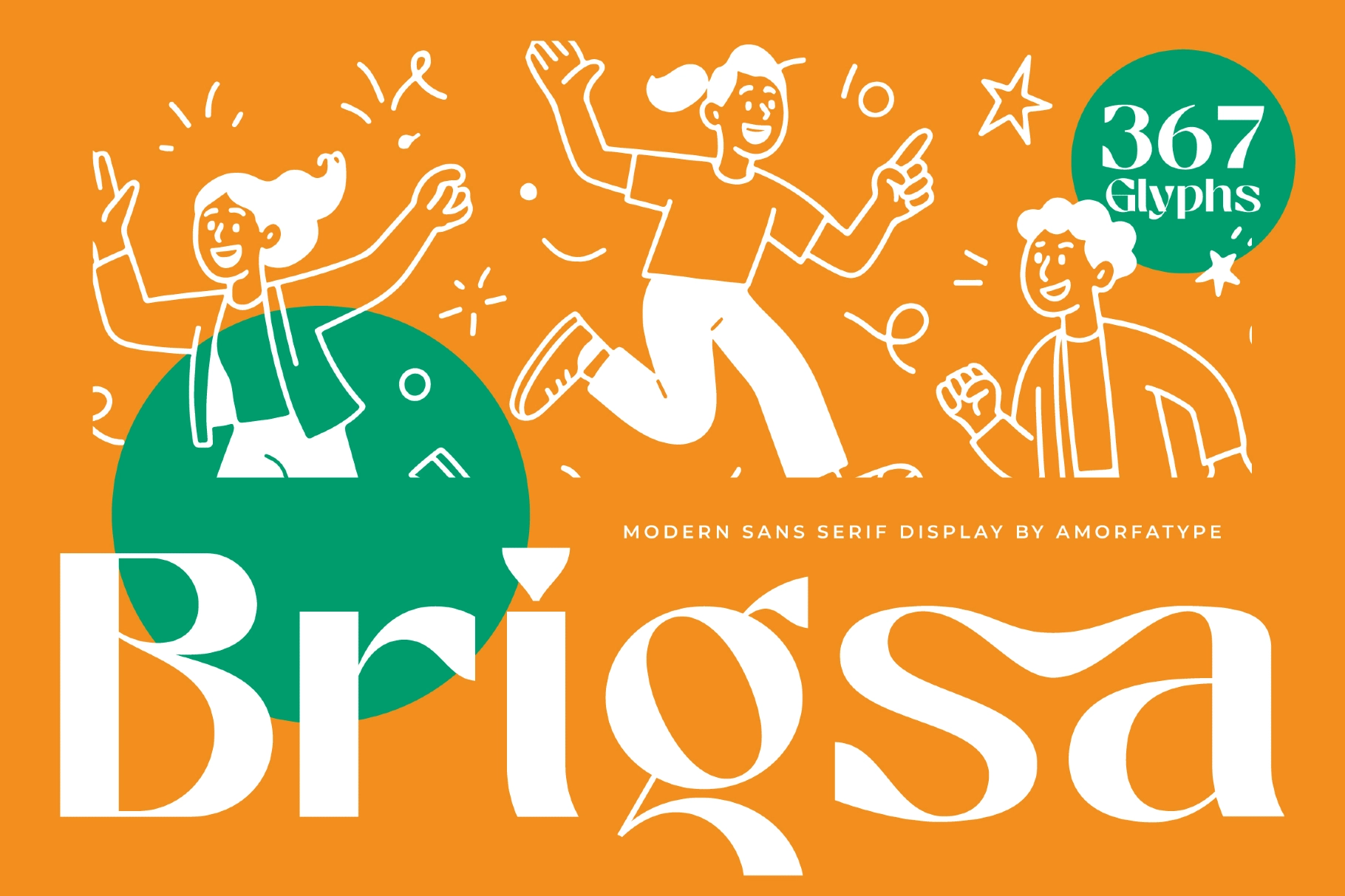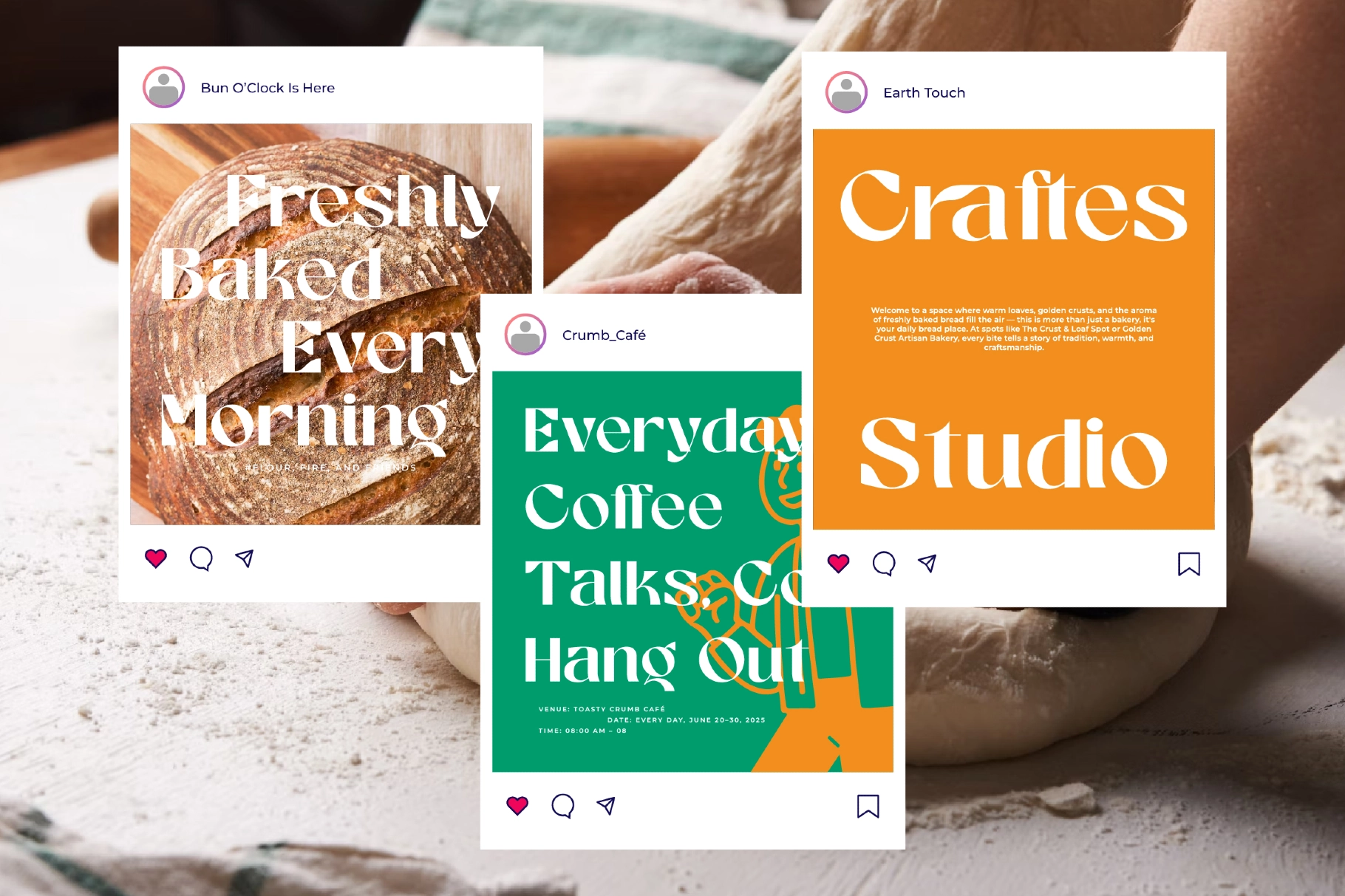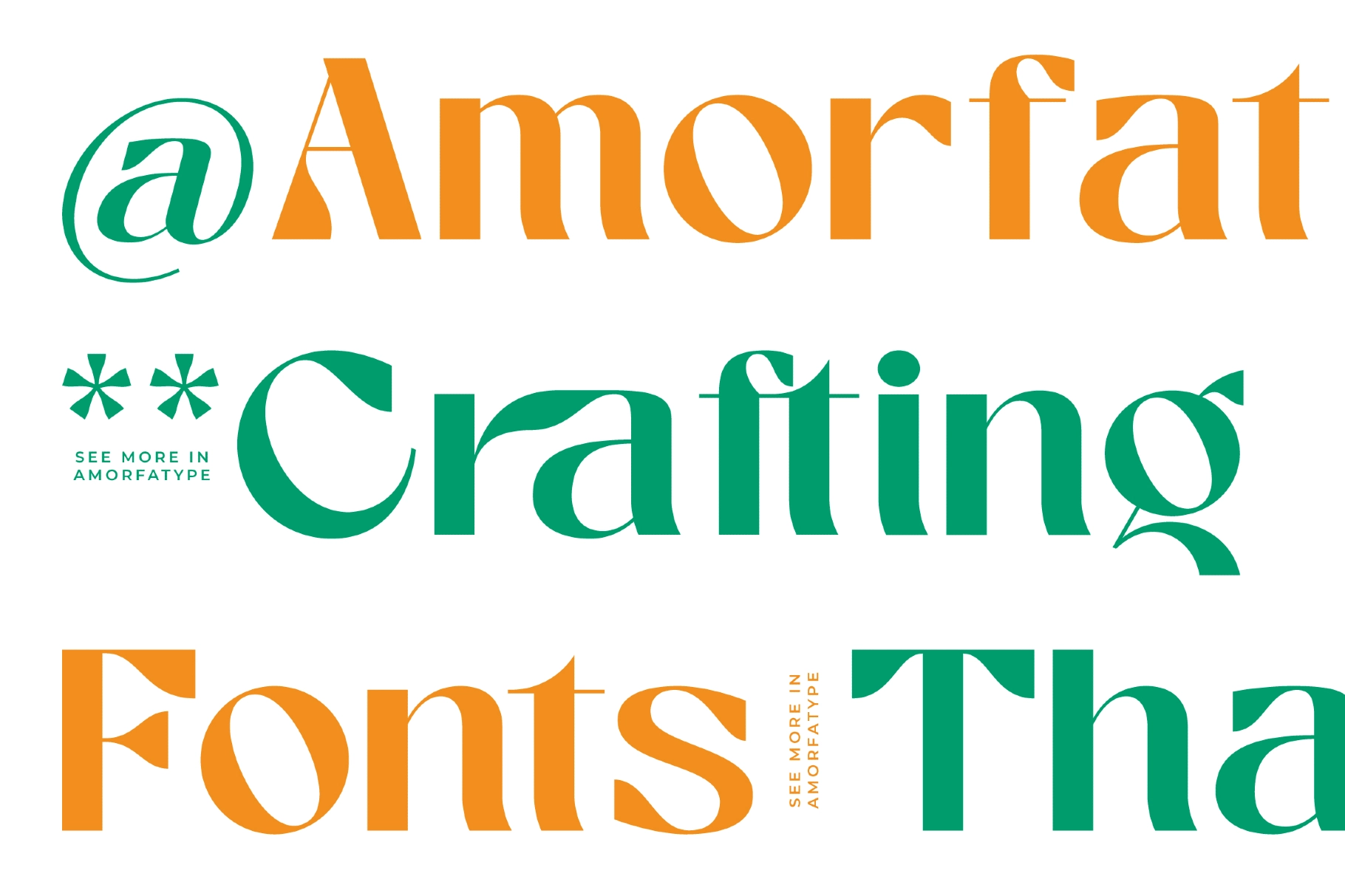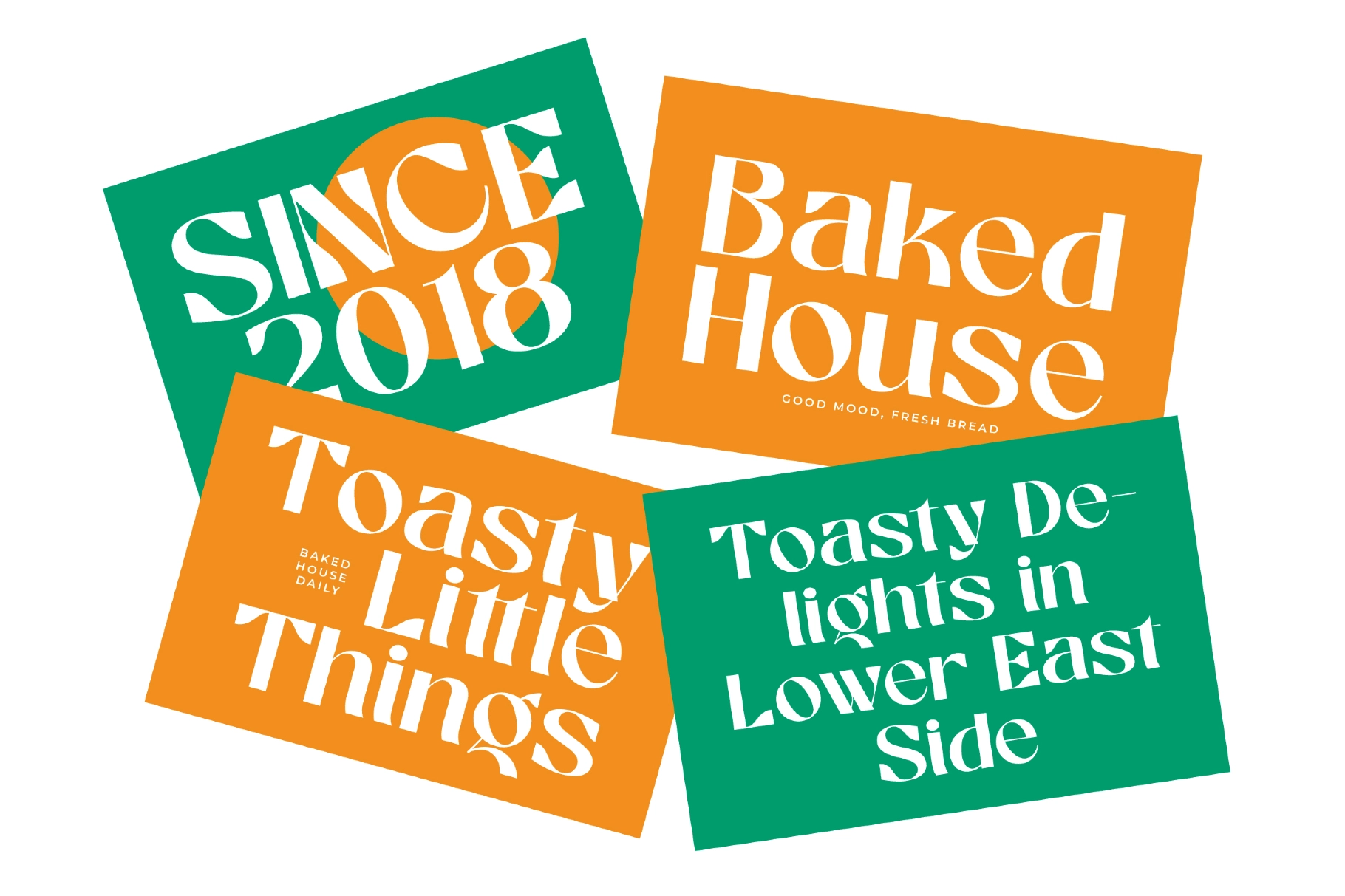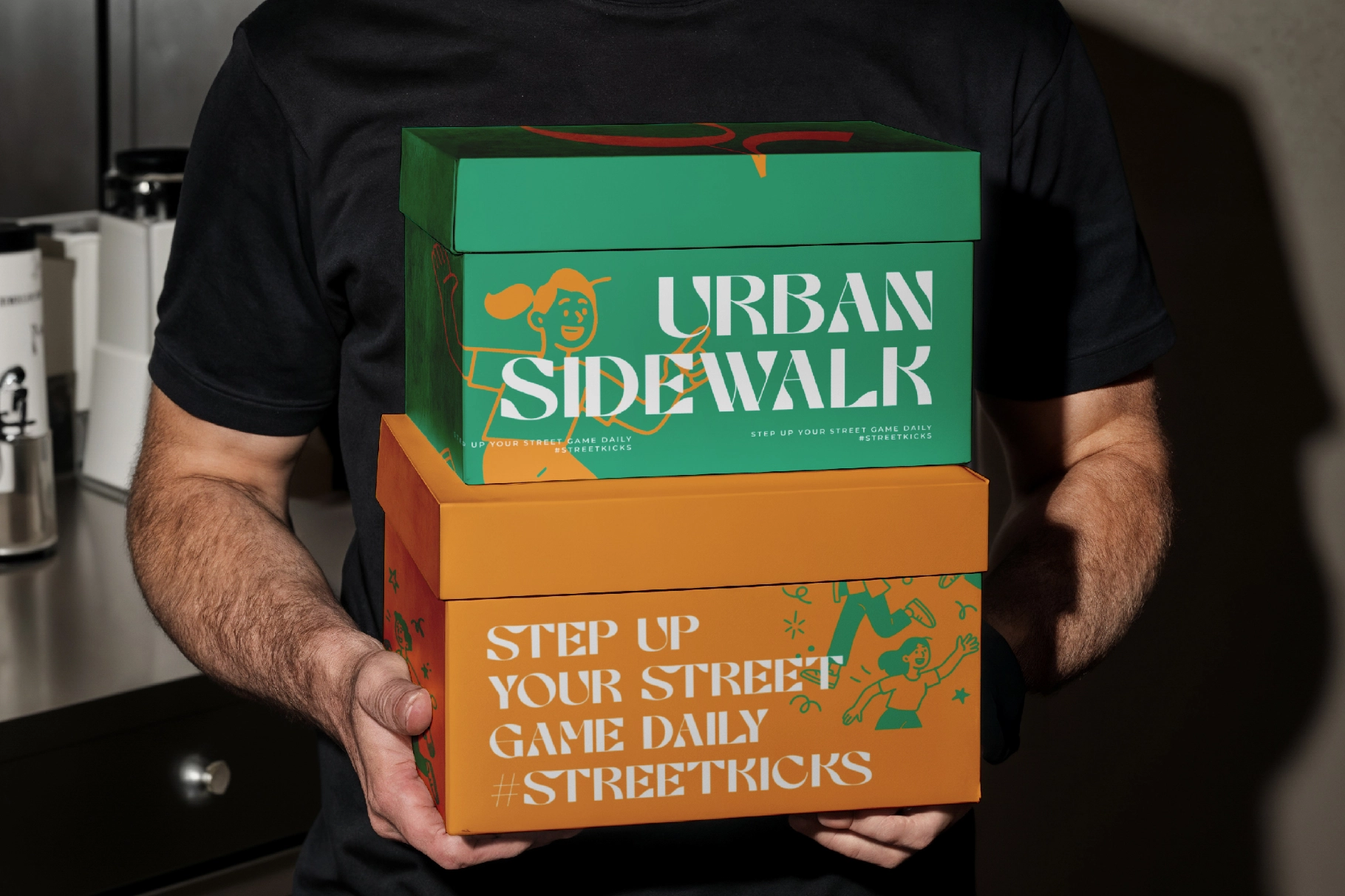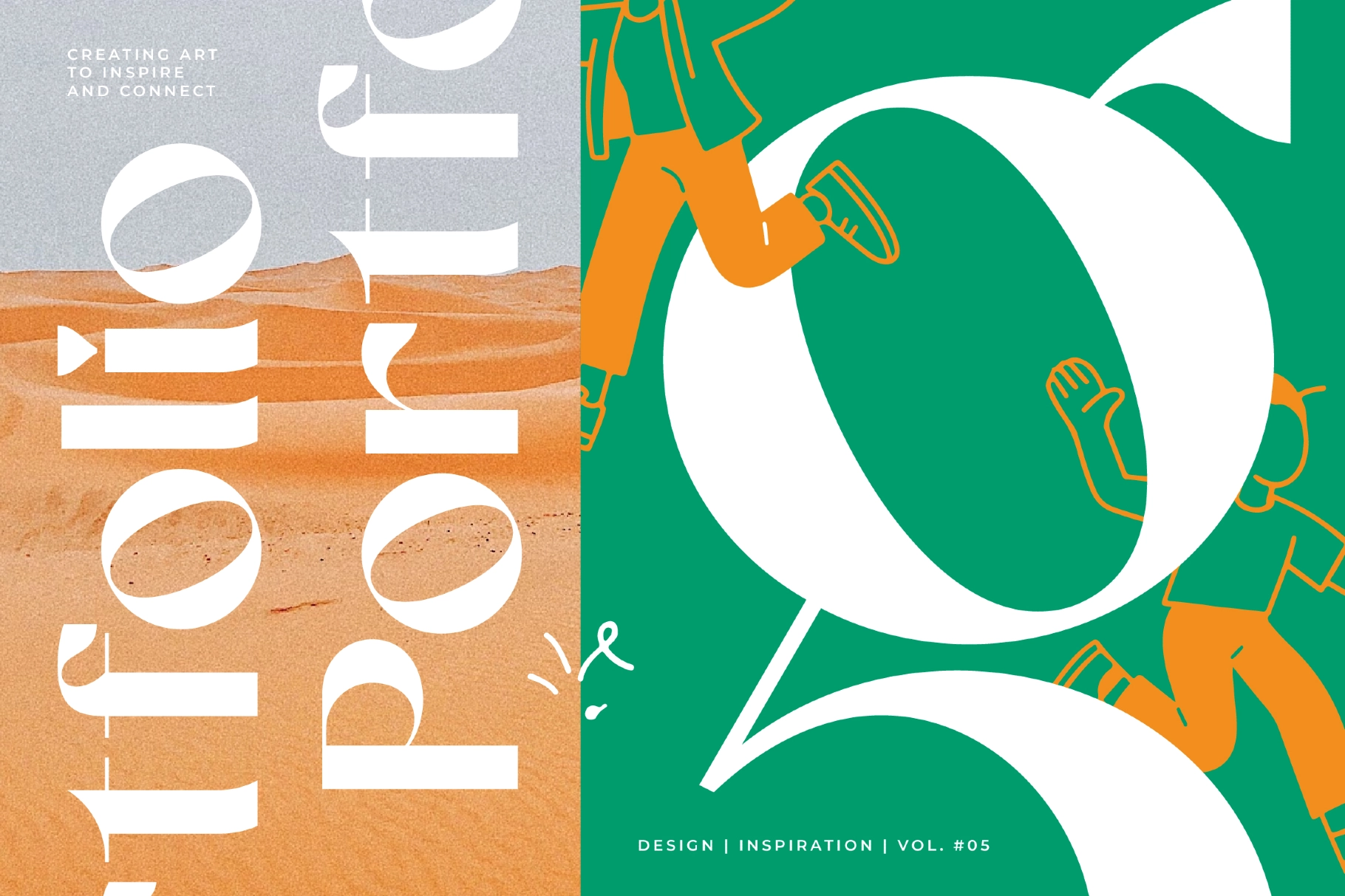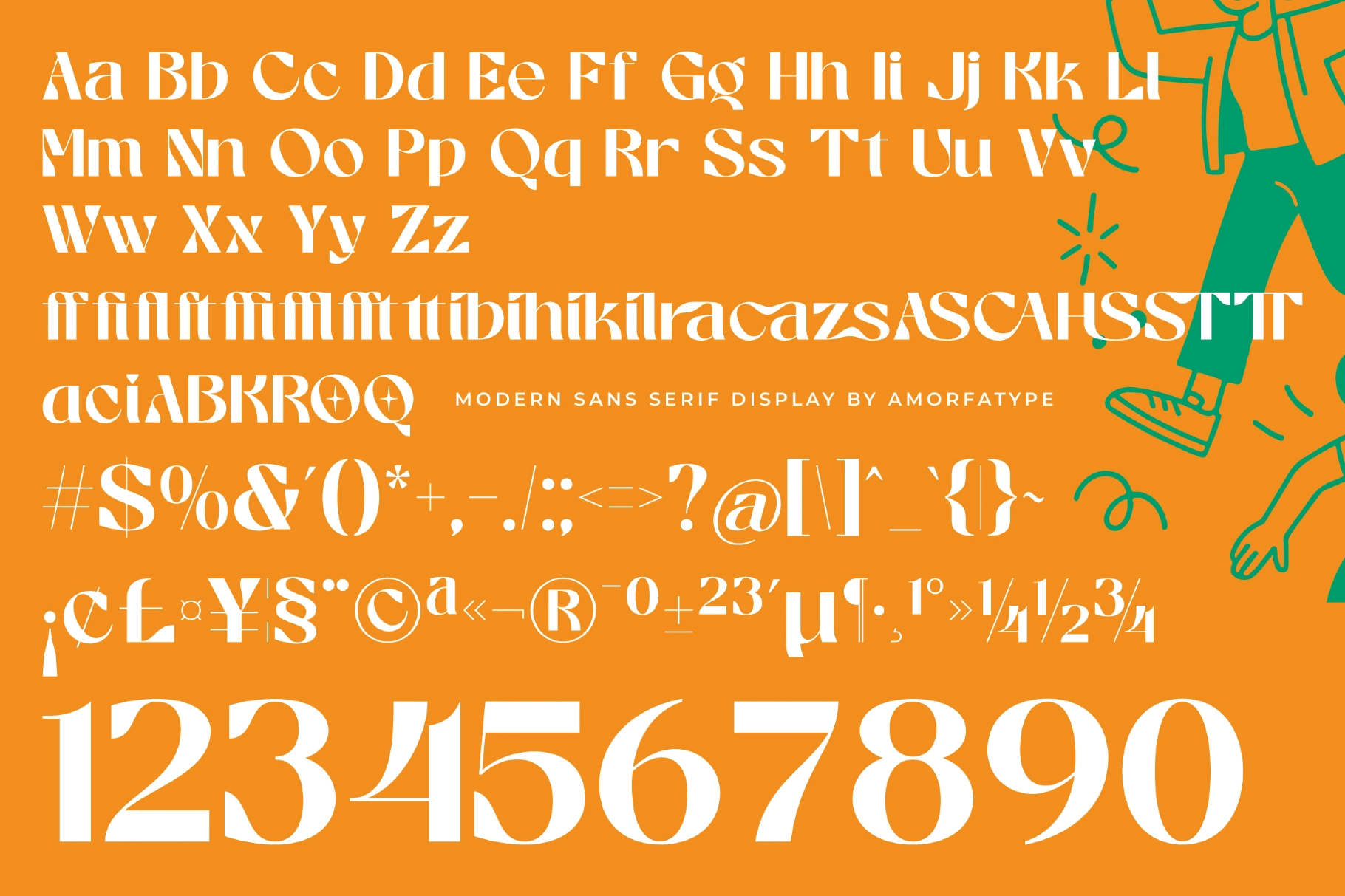
Brigsa - Bold High-Contrast Display Font
Brigsa is a bold high-contrast display font with wide round shapes, sharply tapered hairline strokes, and an optical weight that sits somewhere between Didone pageantry and contemporary editorial confidence. The thick-to-thin transitions are theatrical — stems go heavy fast, curves arch through generous bowls, and the lowercase g and s in particular carry that loose, swinging energy you see in high-craft titling work from the mid-century editorial press.
At headline scale, Brigsa holds its ground across both flat-colour and photographic layouts. Its broad proportions and open counters keep spacing generous, so it works at large type without feeling crowded.
- Uppercase & lowercase;
- Numerals, punctuation & symbols;
- Standard ligatures, discretionary ligatures;
- Stylistic alternates, stylistic sets;
- Fractions, superscripts & ordinals;
- Multilingual support;
- 367 glyphs total.